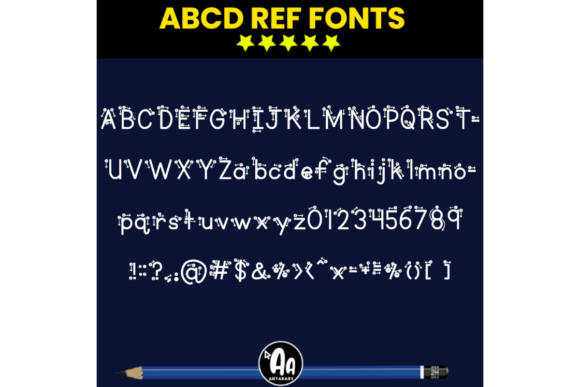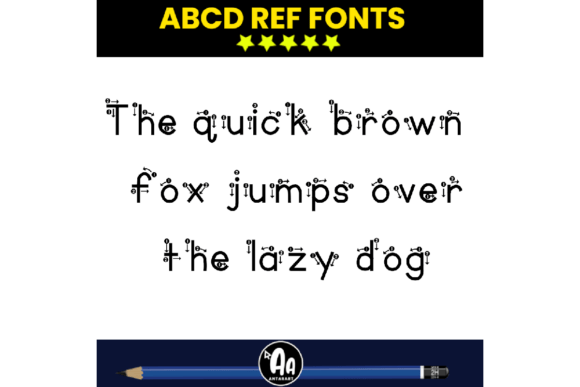
The Ultimate Guide to Arrows and Numbers Font: A Game-Changer for Handwriting Instruction
I’ll never forget the moment I stumbled upon the Arrows & Numbers Tracing Font while working on a project for a client who needed a custom handwriting worksheet. As a designer, I’ve had my fair share of struggles with finding the right font, but this one caught my attention. The combination of bold, traceable letters with directional arrows and numbered stroke steps seemed like a dream come true. In this article, I’ll share my experience with this powerful font, its features, and how to make the most of it on various platforms.
What I Love About Arrows and Numbers Font ✨
- ✅ Comprehensive set of characters: Uppercase, lowercase, and numerals are all included, making it perfect for creating instructional handwriting sheets.
- ✅ Directional arrows and numbered steps: These features provide clear visual guidance for young learners, helping them master correct stroke direction and letter formation.
- ✅ Easy to use: The font is designed to be straightforward, allowing you to focus on creating engaging content rather than getting bogged down in complicated settings.
- ✅ Reinforces muscle memory: By guiding kids through the correct writing sequence, this font helps build a strong foundation for handwriting skills.
While the Arrows & Numbers Tracing Font is an excellent tool, there are a few minor limitations to be aware of:
- 🤔 Some users may find the arrows and numbers a bit too prominent. However, this can be easily adjusted by modifying the font size or using a different color.
- ⚠️ Not suitable for older students or advanced handwriting practice. This font is primarily designed for early learners, so it’s best used for introductory handwriting instruction.
The Arrows & Numbers Tracing Font was likely designed with the goal of creating a clear and engaging handwriting instruction tool. The designer likely drew inspiration from educational research and teaching methods, aiming to create a font that would help young learners develop proper handwriting skills. By combining bold, traceable letters with directional arrows and numbered stroke steps, the designer created a powerful tool for teaching handwriting.
| Font Name | Arrows and Numbers Font |
| Author | AntarArt |
| What is the Arrows & Numbers Tracing Font designed for? | The Arrows & Numbers Tracing Font is designed to help young learners master correct stroke direction and letter formation, making it perfect for handwriting instruction. |
| Is the Arrows & Numbers Tracing Font suitable for older students or advanced handwriting practice? | No, this font is primarily designed for early learners and introductory handwriting instruction. |